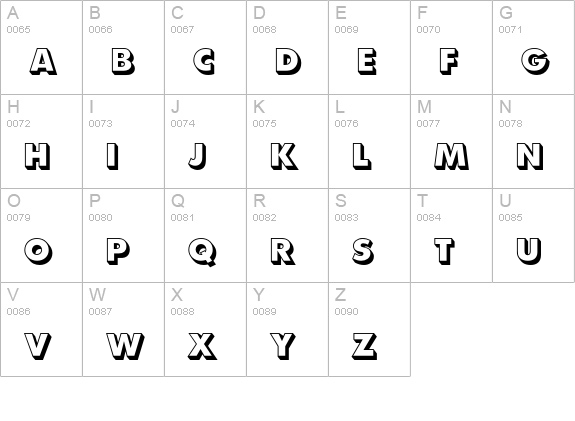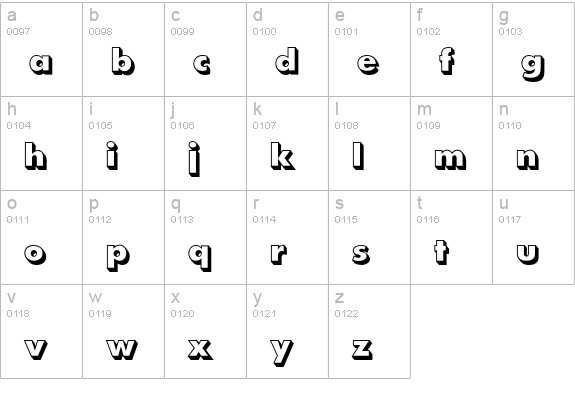
FuturaEF-ExtraBoldShadowed Font Details
FuturaEF-ExtraBoldShadowed is a striking and bold font that exudes a strong and modern aesthetic. With its unique shadowed effect, this font commands attention and adds a dramatic flair to any design project. The extra bold weight of FuturaEF-ExtraBoldShadowed makes it perfect for headlines, logos, posters, and other display purposes where you want to make a statement. What sets FuturaEF-ExtraBoldShadowed apart is not only its bold look, but also its versatility. Despite its boldness, this font remains highly readable and can be used in a variety of design contexts. Whether you're looking to create a powerful headline or add a touch of sophistication to your branding, FuturaEF-ExtraBoldShadowed is sure to deliver. The best part? FuturaEF-ExtraBoldShadowed is available for free download at FontsMarket.com. This means that you can easily access this impactful font and incorporate it into your design projects without breaking the bank. Don't miss out on the opportunity to enhance your designs with the bold and dynamic FuturaEF-ExtraBoldShadowed font today.